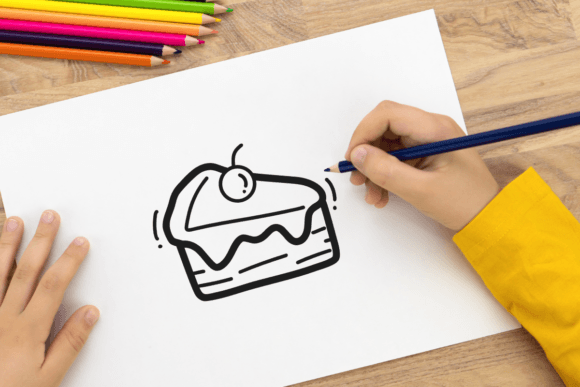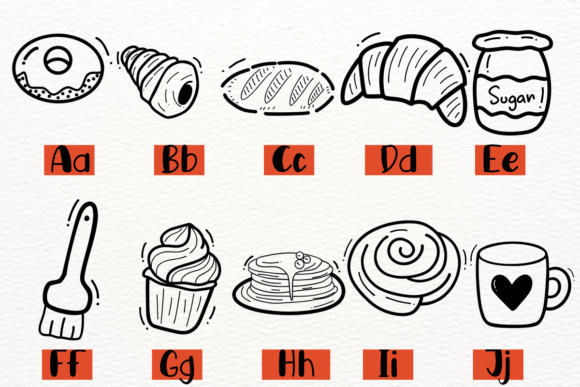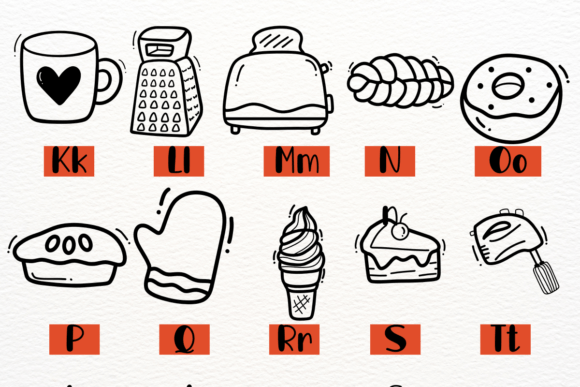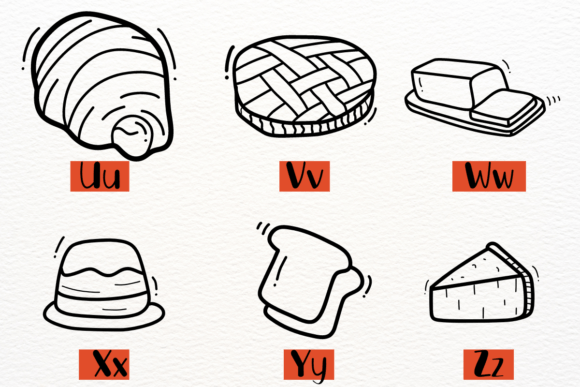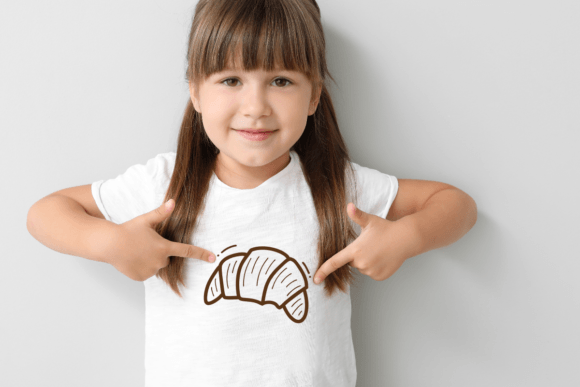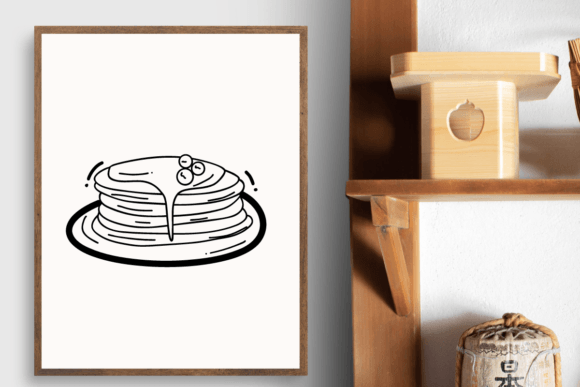
Bakery Font: Elevate Your Designs with Delicate Elegance
Are you a designer or crafter looking for a unique and versatile font to take your projects to the next level? Look no further than Bakery Font, a delicate and elegant dingbat font that’s sure to capture your heart. With its distinct and well-balanced letters, this font is a masterpiece that’s perfect for creating spectacular designs.
The Charm of Bakery Font
Bakery Font is a one-of-a-kind dingbat font that’s designed to add a touch of elegance and sophistication to your designs. Its incredibly versatile style makes it perfect for a wide range of projects, from fun and playful crafts to more serious and professional designs. Whether you’re creating invitations, greeting cards, or social media graphics, Bakery Font is sure to make your work stand out.
Key Features of Bakery Font
- Delicate and Elegant: Bakery Font features delicate and elegant lettering that’s perfect for creating sophisticated designs.
- Distinct and Well-Balanced: Each letter in Bakery Font is carefully crafted to be distinct and well-balanced, making it easy to read and visually appealing.
- Incredibly Versatile: Bakery Font can be used for a wide range of projects, from fun and playful crafts to more serious and professional designs.
Why Choose Bakery Font?
So why choose Bakery Font for your next project? Here are just a few reasons why this font stands out:
- Unique and Eye-Catching: Bakery Font is a unique and eye-catching font that’s sure to grab attention and make your designs stand out.
- High-Quality Design: Bakery Font is designed to high standards, ensuring that your designs look professional and polished.
- Fits a Wide Range of Projects: Whether you’re creating digital or print designs, Bakery Font is versatile enough to fit a wide range of projects.
Inspiration for Your Bakery Font Projects
Still looking for inspiration for your Bakery Font projects? Here are a few ideas to get you started:
- Wedding Invitations: Use Bakery Font to create beautiful and elegant wedding invitations that set the tone for the big day.
- Greeting Cards: Add a touch of elegance to your greeting cards with Bakery Font, perfect for special occasions like birthdays and holidays.
- Social Media Graphics: Use Bakery Font to create eye-catching social media graphics that stand out in crowded feeds.
- Craft Projects: Add a personal touch to your craft projects, such as scrapbooking and journaling, with Bakery Font.
Bakery Font is a delicate and elegant dingbat font that’s perfect for designers and crafters looking to add a touch of sophistication to their projects. With its distinct and well-balanced letters, incredibly versatile style, and ease of use, Bakery Font is sure to become a favorite in your font library. So why wait? Download Bakery Font today and start creating spectacular designs that will leave a lasting impression!